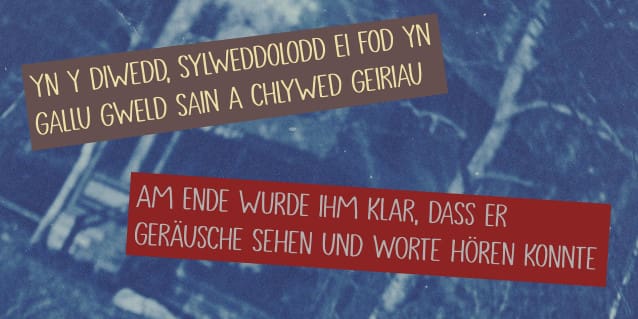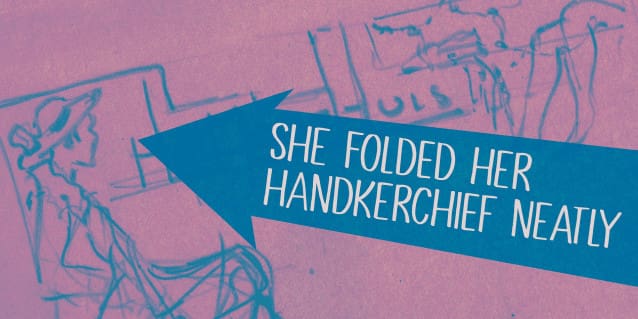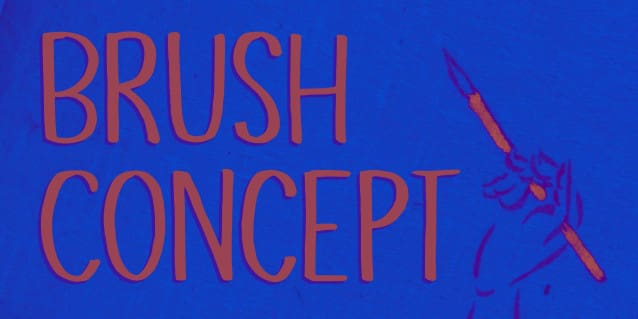
Brush Concept Font
Brush Concept Font a nice and even, sophisticated brush font that comes with extensive language support and a set of contextual alternates.